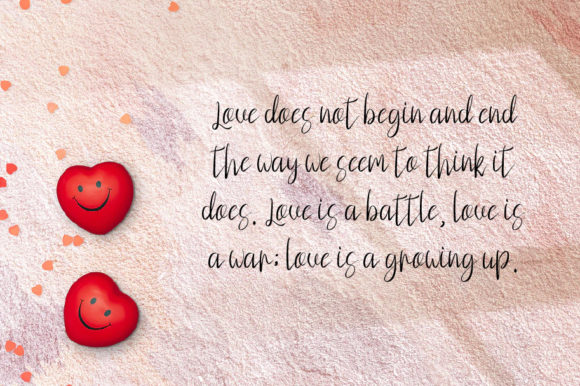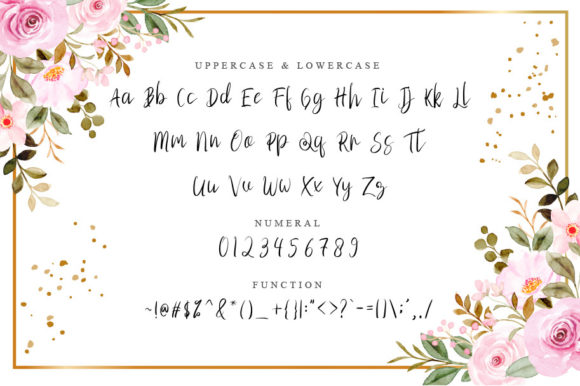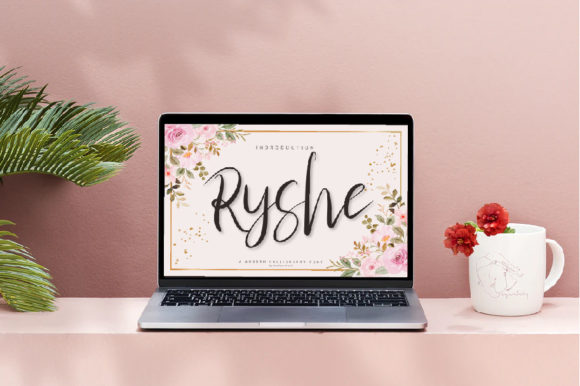
Introduction to Ryshe Font
Have you ever been working on a creative project, pouring your heart and soul into a design, and suddenly, the perfect font comes along and makes everything pop? That’s exactly what happened to me when I stumbled upon the Ryshe Font. Its unique, handwritten style added a touch of elegance and sophistication to my design, and I knew I had to share it with the world.
As a designer, you’re always on the lookout for high-quality design resources that can elevate your work and make it stand out. The Ryshe Font is an excellent choice for creating eye-catching logos, branding, and quotes. With its beautiful, hand-crafted letters, it’s the perfect addition to any design project.
Key Features of Ryshe Font
- Unique, hand-drawn design with a minimalist aesthetic, making it perfect for creative projects.
- Perfect for use in creative projects, such as logos, branding, and typography-based designs.
Honest Review: Ryshe Font
I recently stumbled upon the Ryshe Font, and I must say it’s a solid addition to any designer’s arsenal. As a design resource, it offers a unique blend of modern and vintage elements that can elevate any creative project.
- ✨ High-quality design: The Ryshe Font boasts crisp lines, clean typography, and a professional finish.
- ✨ Versatile use: This font can be used for a variety of projects, from logos and branding to digital displays and print materials.
- ⚠️ Limited character set: While the font is well-designed, the character set is somewhat limited, which may not be ideal for projects requiring extensive text.
Overall, the Ryshe Font is a great choice for designers looking for a high-quality, free design resource. While it may have some limitations, its unique style and versatility make it a valuable addition to any creative project.
Common Use Cases for Ryshe Font
Ryshe Font is commonly used in logos, branding, and marketing materials. It’s also great for creating eye-catching headings and titles in your designs.